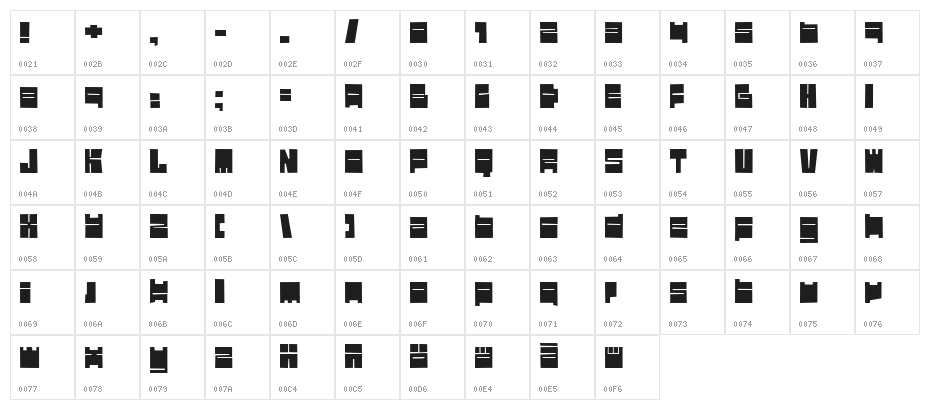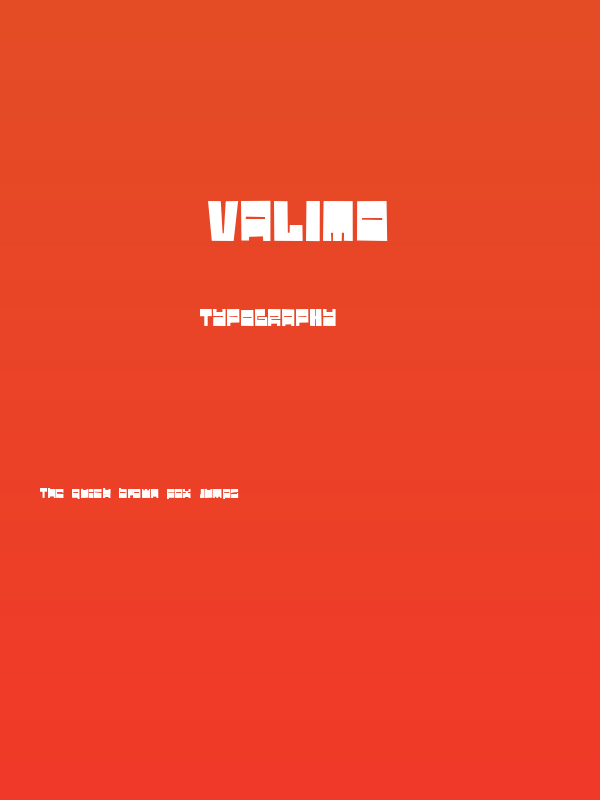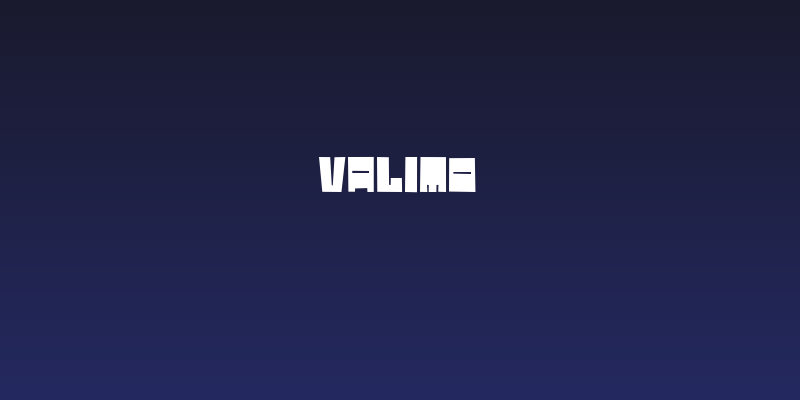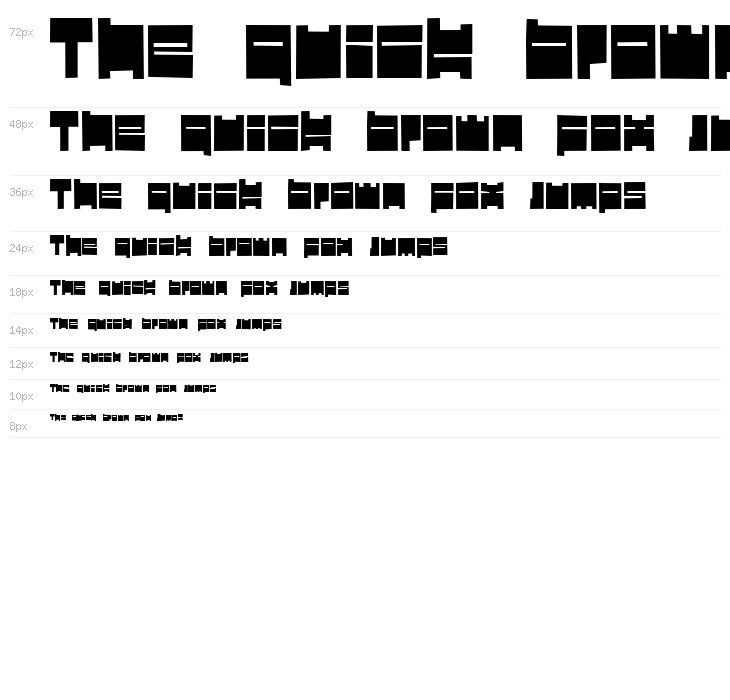
Valimo Font
Valimo Description
This font features a bold, geometric design with a distinctly modern and futuristic aesthetic. Each character is constructed with solid, block-like shapes, creating a sense of strength and stability. The uppercase and lowercase letters maintain a uniform height, contributing to a cohesive appearance. The numbers and special characters follow the same design principles, ensuring consistency across all elements. The font's unique style is characterized by its sharp angles and straight lines, giving it a digital or technological feel. This makes it particularly suitable for projects that require a strong visual impact.
| Proposed Projects | Ideal for technology branding, video game titles, sci-fi movie posters, and digital interfaces. |